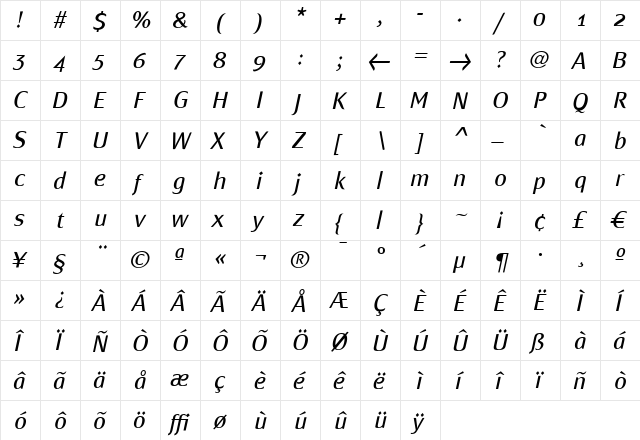
MondialPlus Light Italic
Design Context for MondialPlus Light Typeface
MondialPlus Light takes a measured approach to typography — its balanced proportions and neutral character make it a reliable workhorse for both digital and print work. The dynamic lean of this cut emphasises speed and emphasis in any layout. The delicate stroke weight brings airiness and refinement to layouts.
Pro Tip: Try MondialPlus Light for annotation and caption copy alongside an upright companion — the contrast in angle creates a dynamic but ordered typographic system.